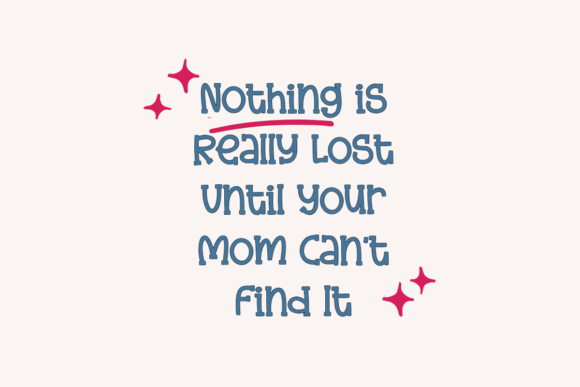
Simple Preppy Font
Simple Preppy is a cute, bold handwritten font. Add this bold font to your design and watch how it brings it to life. Get inspired by her unique and beautiful style and add it to your favorite designs!